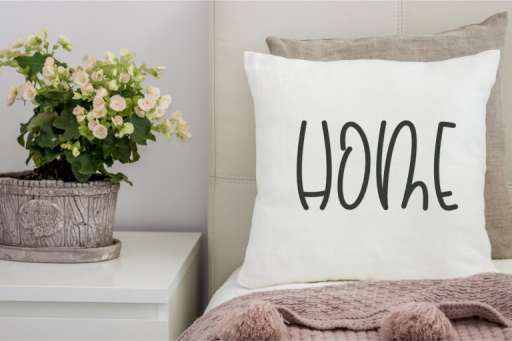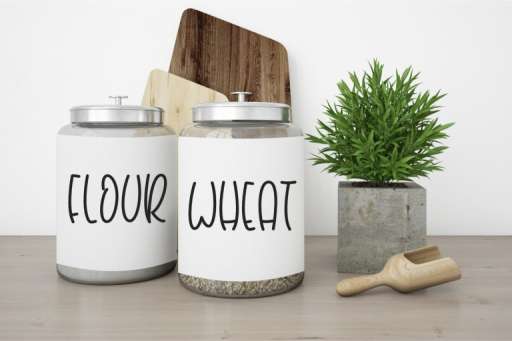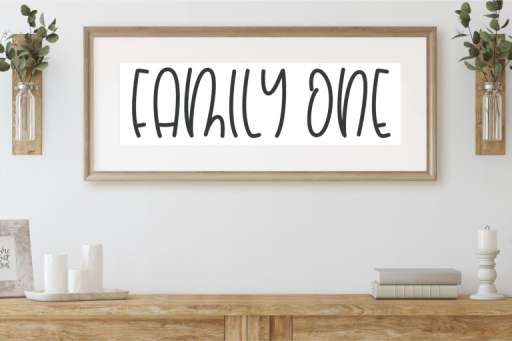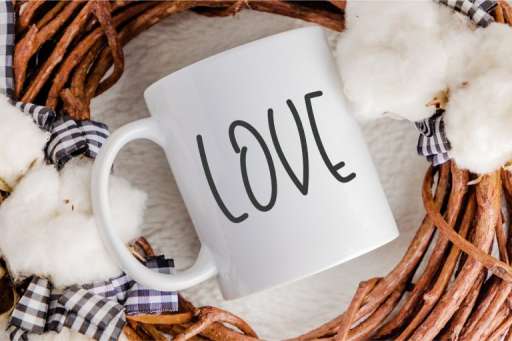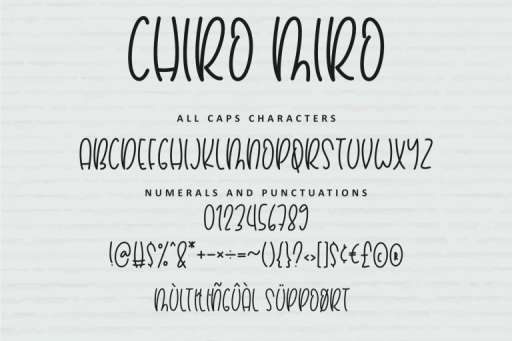
Chiro Miro – Unique Farmhouse Font
Introducing our Chiro Miro font, perfect for all your creative projects!. Best of all, it’s available for commercial use, allowing you to use it in your business ventures, advertising, branding, and more. Unlock your creativity with this font for free commercial use.